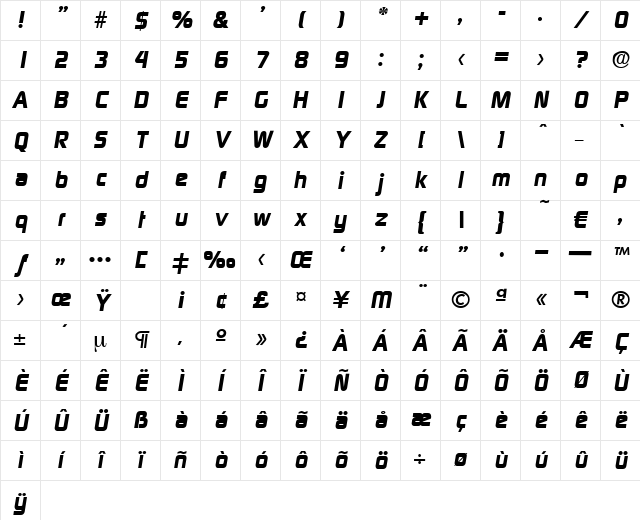
Digital-BoldIta Regular
Design Context for Digital-BoldIta
Digital-BoldIta has a distinctly futuristic character, with geometric precision and clean angles that feel at home in technology, gaming, and sci-fi contexts. Its bold stroke weight gives it real presence on the page.